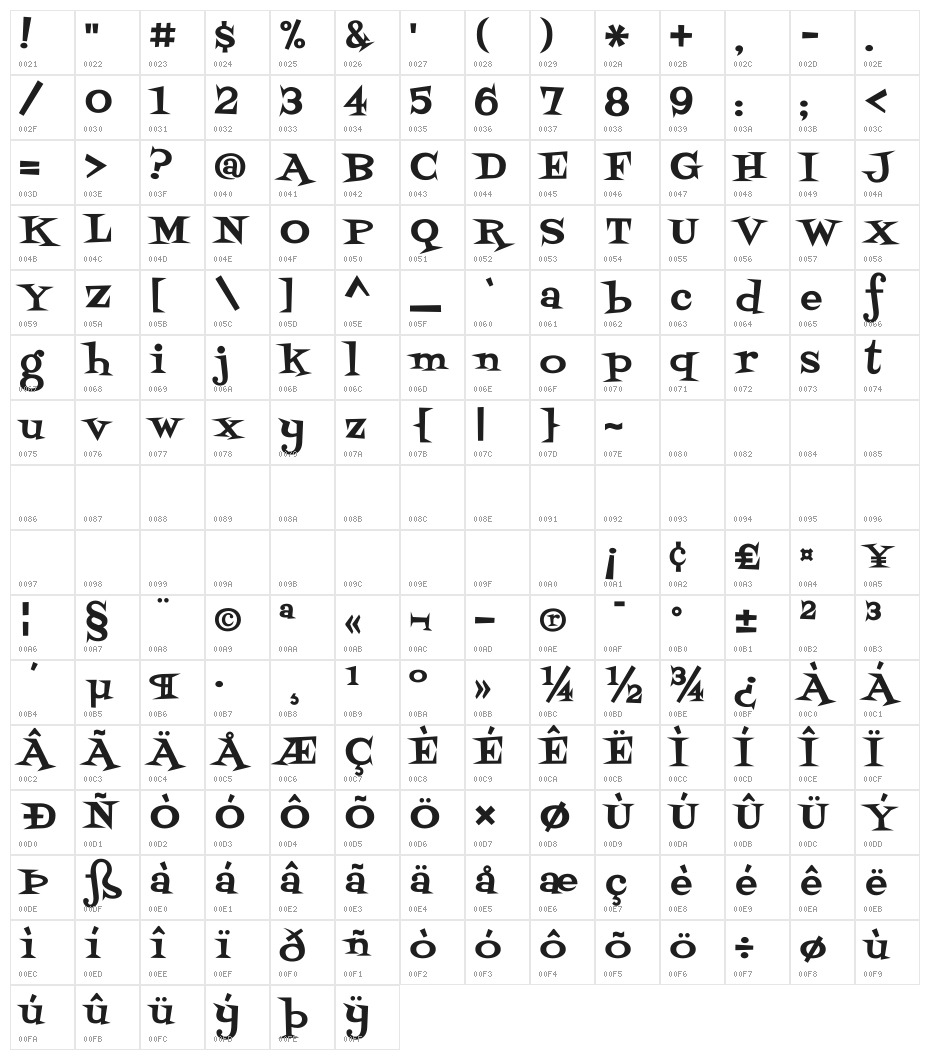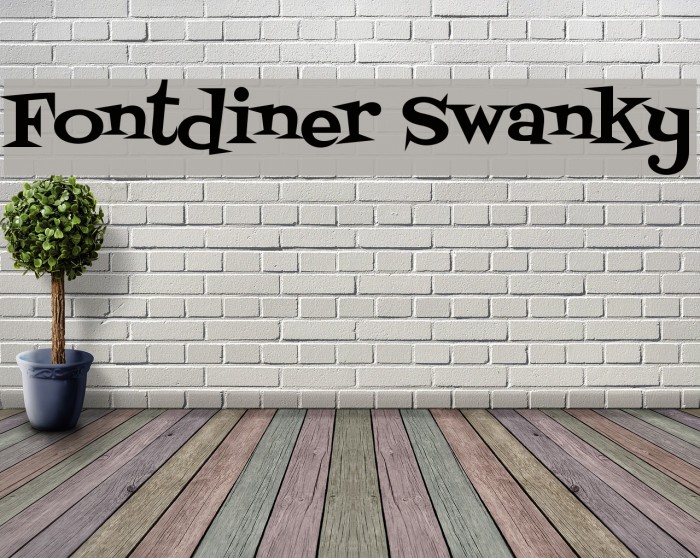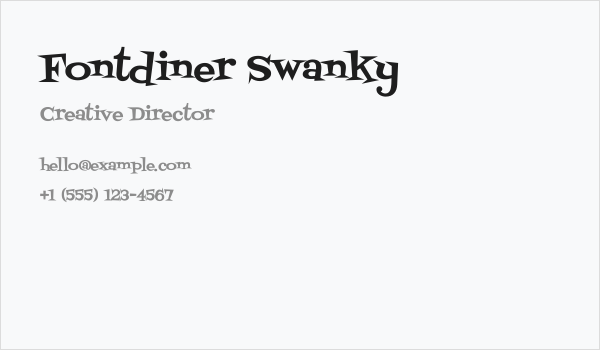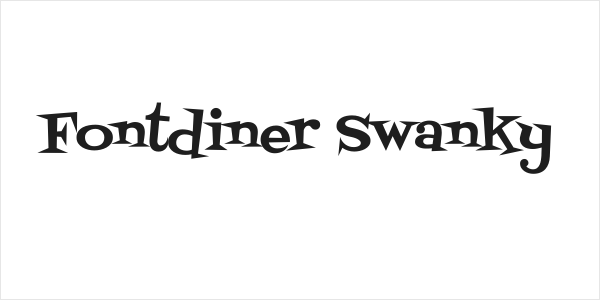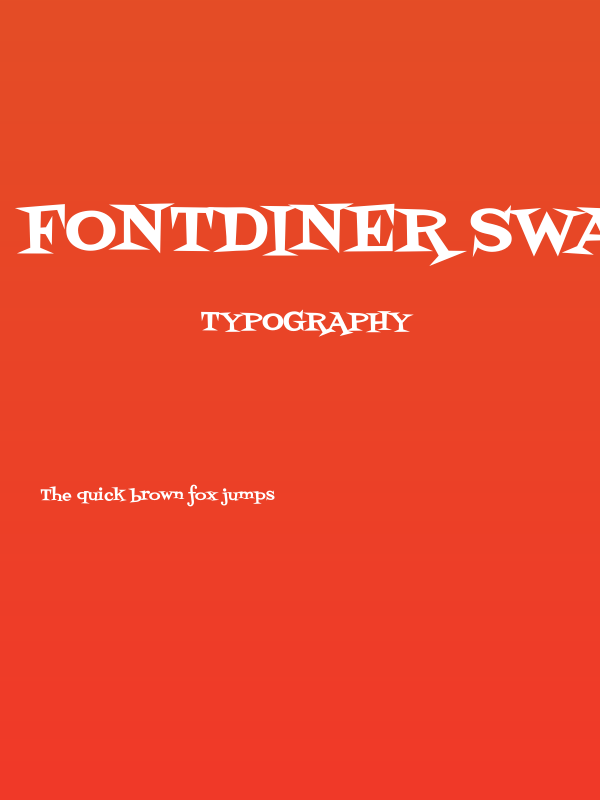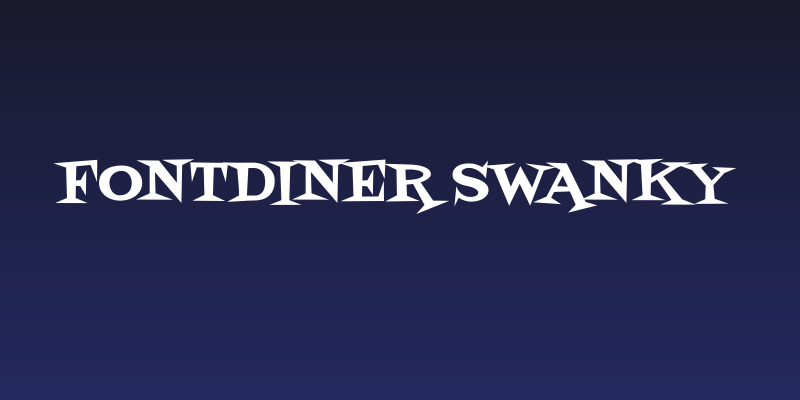
Fontdiner Swanky Font
Fontdiner Swanky Description
This font exudes a playful and whimsical character, with its unique and quirky letterforms. The uppercase letters feature exaggerated serifs and a bold presence, while the lowercase letters maintain a consistent style with a slightly more subdued flair. The numbers are equally distinctive, with a bold and lively appearance. Special characters are designed to complement the overall aesthetic, adding to the font's charm. The font's style is reminiscent of retro and vintage designs, making it ideal for projects that require a touch of nostalgia and fun.
| Proposed Projects | Perfect for vintage-themed posters, playful branding, children's book covers, and retro advertisements. |